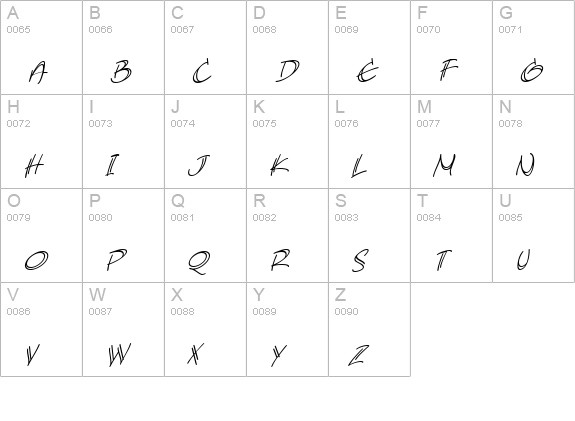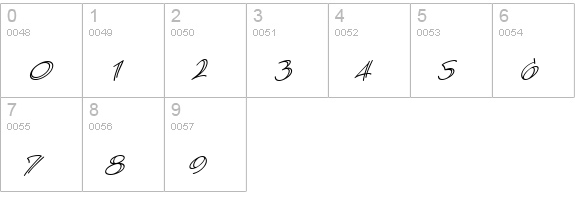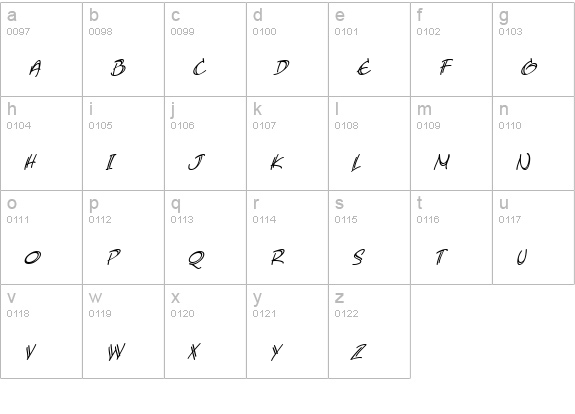
AtlandSketches BB Italic Font Details
AtlandSketches BB Italic is a distinctive, italic variant in the AtlandSketches typeface family \xE2\x80\x94 well suited to design and typography projects.
AtlandSketches BB Italic font is a whimsical and playful typeface designed to add a touch of creativity and uniqueness to your projects. The italic style of this font gives it a dynamic and energetic appearance, perfect for conveying a sense of movement and spontaneity. With its hand-drawn look and quirky details, AtlandSketches BB Italic font is sure to make your designs stand out and capture attention. Whether you're working on a poster, logo, or branding project, this font will add a fun and artistic flair to your work. Best of all, AtlandSketches BB Italic font is completely free to download at FontsMarket.com. This means you can easily access this charming font and use it in your projects without any cost. So why wait? Give your designs a fresh and creative look with AtlandSketches BB Italic font today!